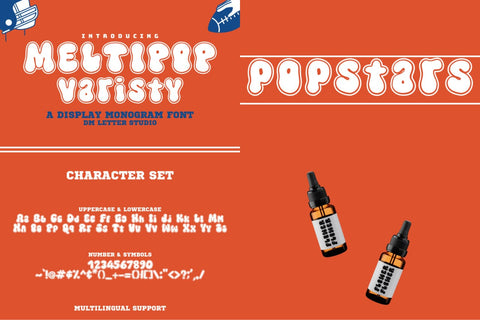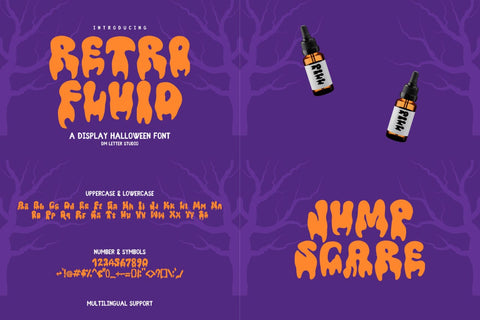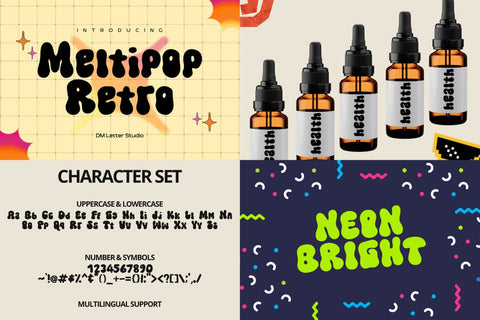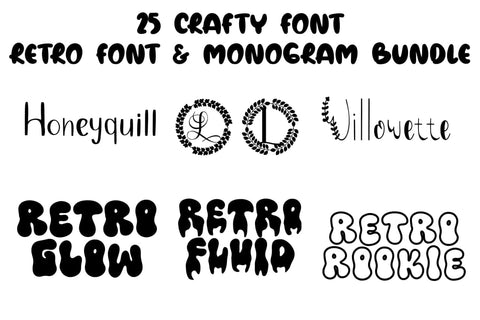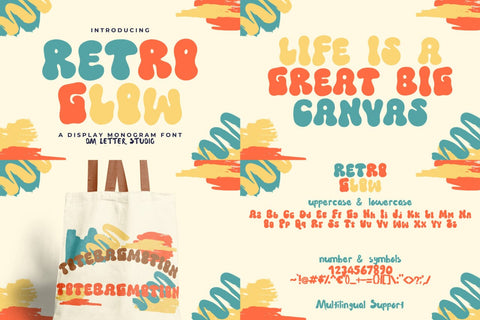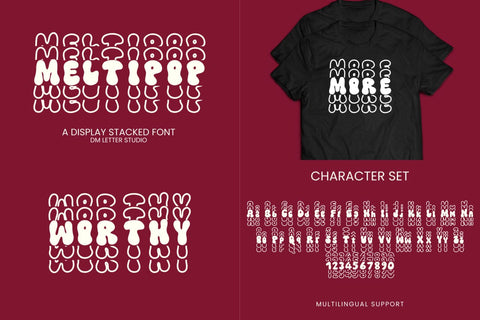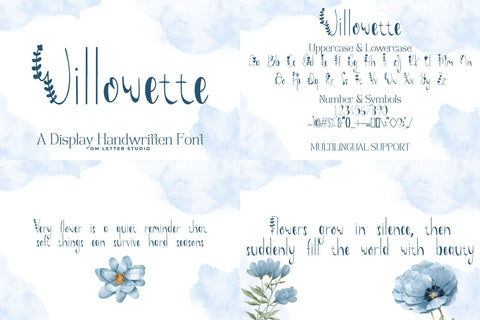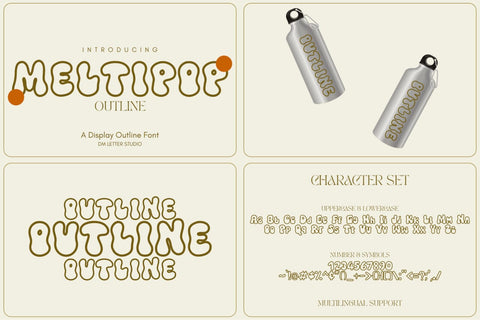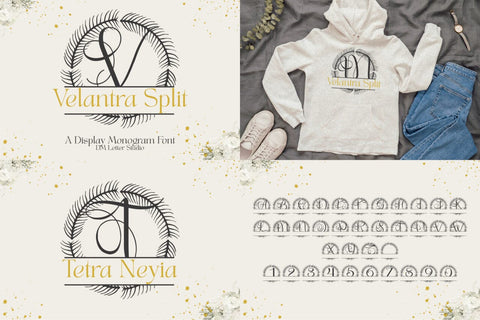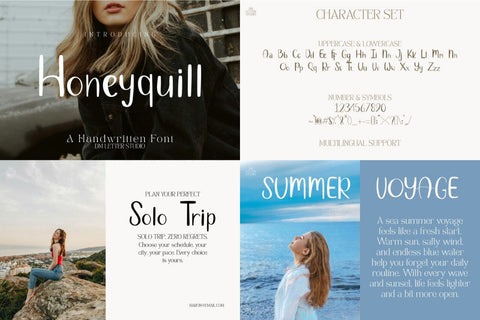
Retro Font & Monogram Bundle Font
Build a full catalog with one bundle font that covers retro headlines and elegant monograms. This collection mixes bubbly throwback displays with refined initials and split styles, so you can launch logos, shirts, labels, invites, and signage fast. Because every family is cut-friendly and readable at small sizes, you spend less time tweaking and more time shipping designs.
Why this bundle font works
What’s inside and how to use it
Retro displays: Use Meltipop and Retro series for posters, branding, stickers, and YouTube covers. Add outlines, soft shadows, or gradients for instant depth.
Scripts and logos: Willowette and Honey Quill create romantic marks, labels, and boutique logos. Pair with a neat sans for details.
Monograms: Lettravia, Marquessa, Mireth, Monarchine, Nuvoria, Ornalis, Rosaver, and Velantra include both classic initials and split versions for names and dates. Consequently, you can produce custom gifts and signs in minutes.
Creator-ready details
Clean paths keep vinyl cuts, foil, laser, and engraving crisp. Open counters improve tiny tags and mobile previews. In addition, consistent spacing helps you reuse a single layout across SKUs: swap letters, switch colors, export, and list.
Included families
Meltipop Outline, Meltipop Retro, Meltipop Stacked, Meltipop Varsity, Retro Fluid, Retro Glow, Retro Cookie, Willowette, Honey Quill, Lettravia Monogram, Lettravia Split Monogram, Marquessa Split Monogram, Mireth Split Monogram, Monarchine Split Monogram, Nuvoria Split Monogram, Ornalis Split Monogram, Rosaver Split Monogram, Velantra Split Monogram.
Pro tips
Keep headlines short. Pair bold retro titles with a simple geometric sans. For monograms, let white space breathe and choose a quiet secondary font inside the split. Finally, save three palette sets, like coral and mint, champagne and charcoal, or navy and gold, to lock a cohesive brand voice.